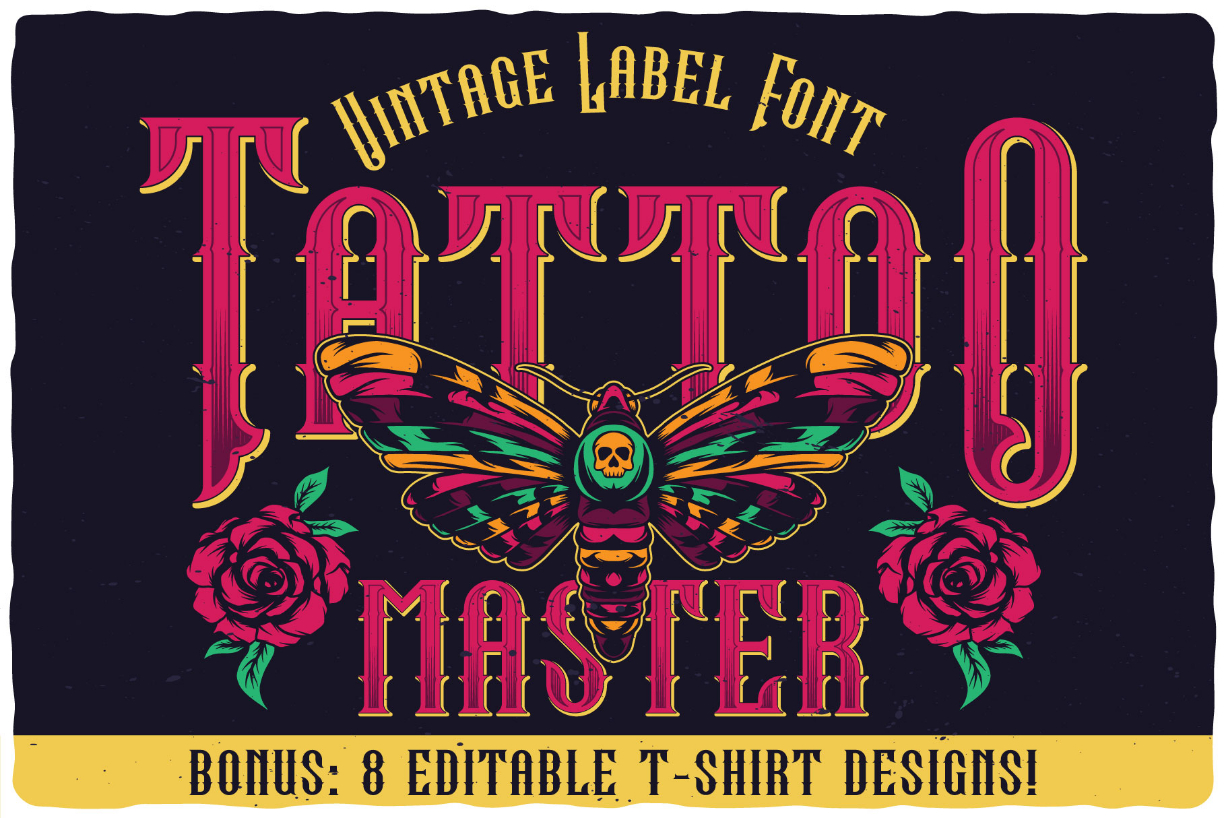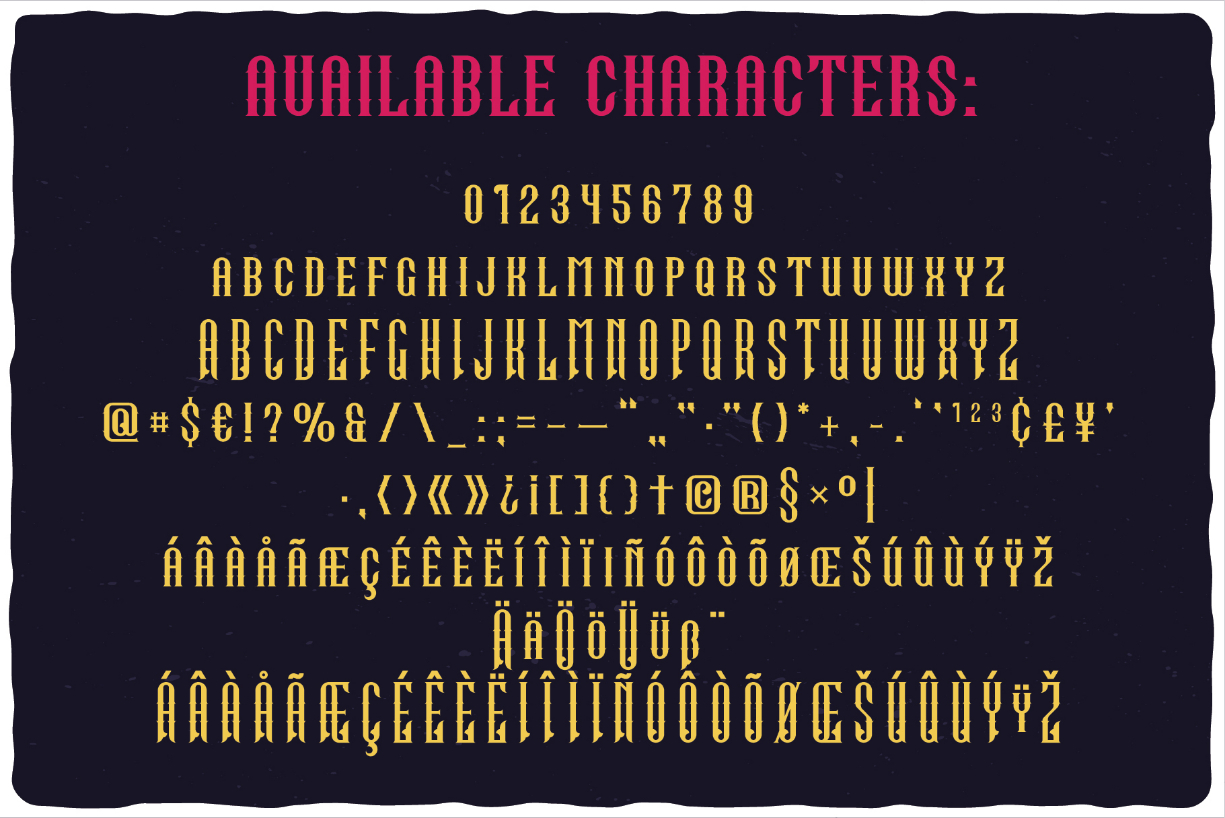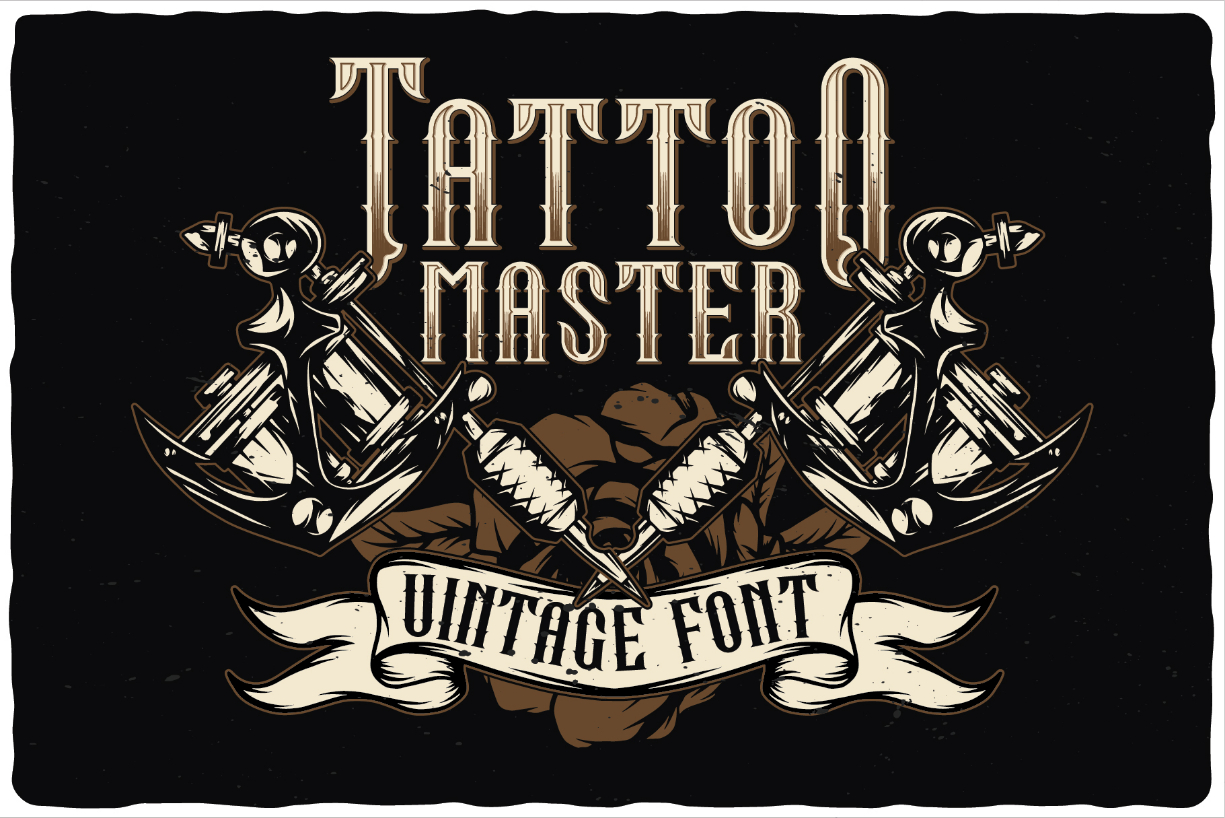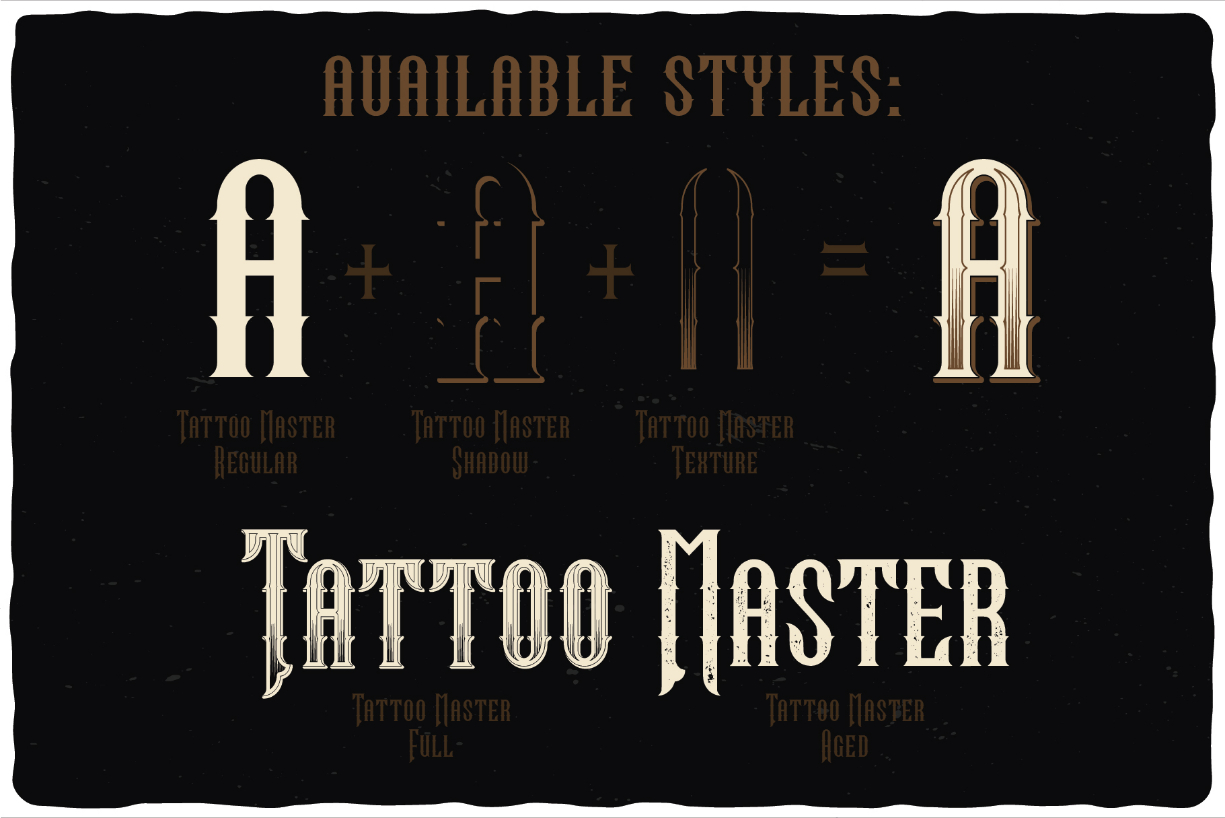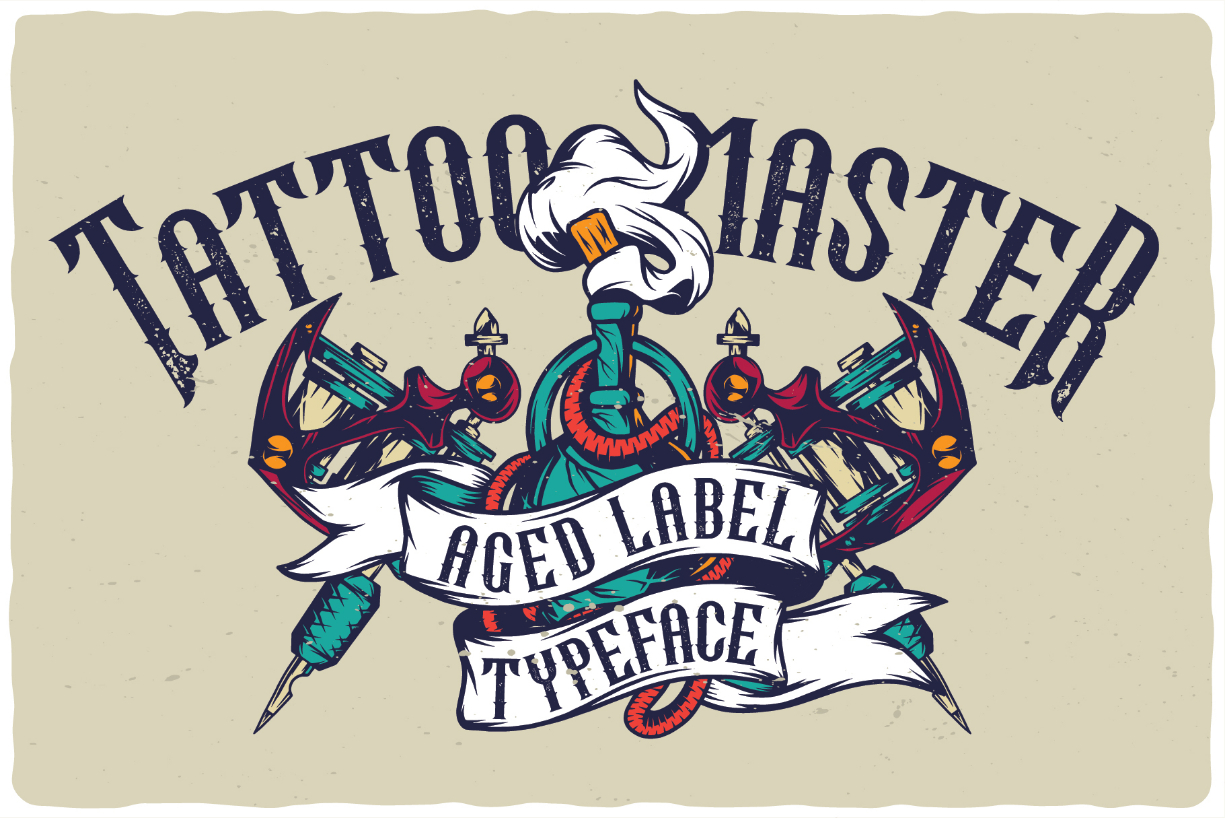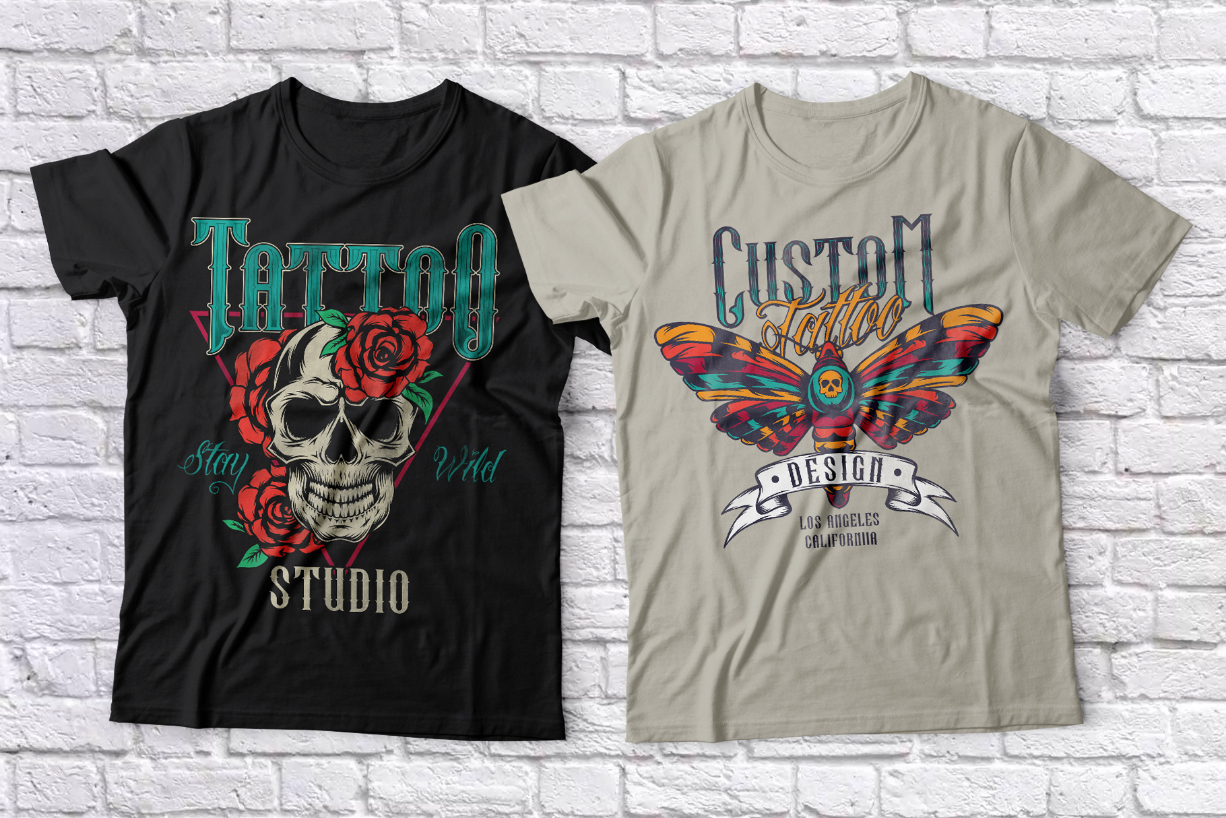
Tattoo Master Font
About Tattoo Master Font
Tattoo Master is a simple but incredibly effective blackletter font. It has a bold and impressive style and it will most definitely make your designs stand out!